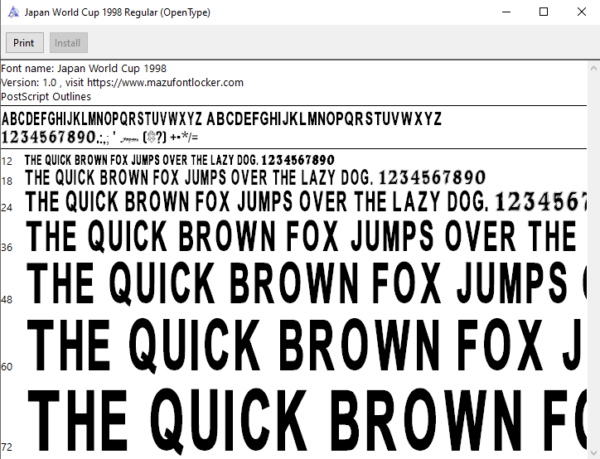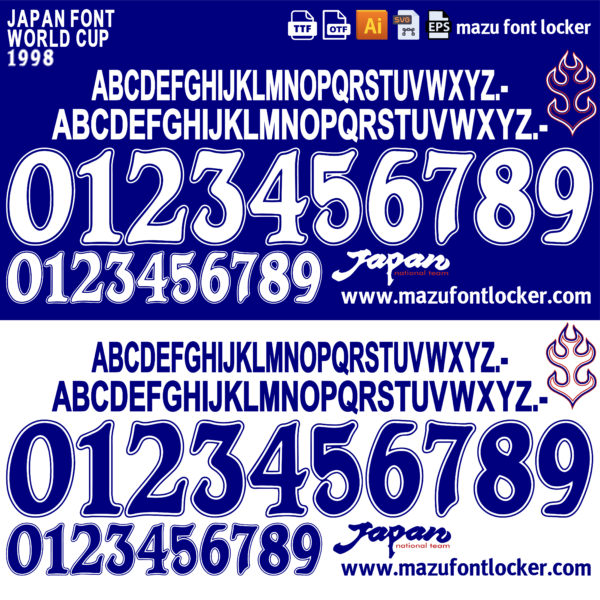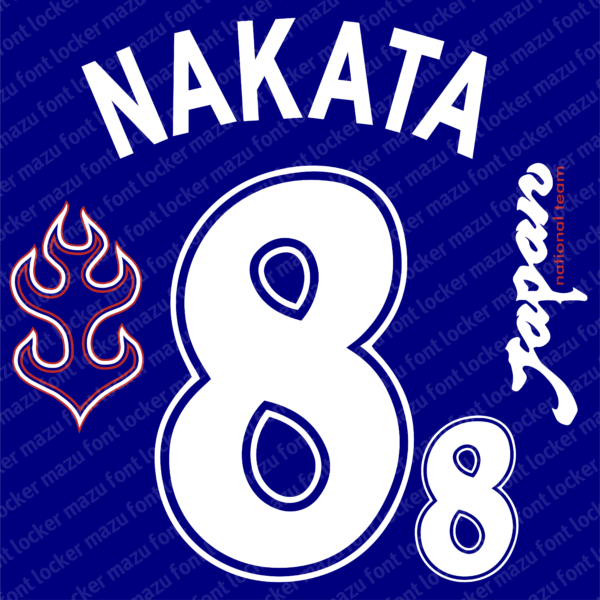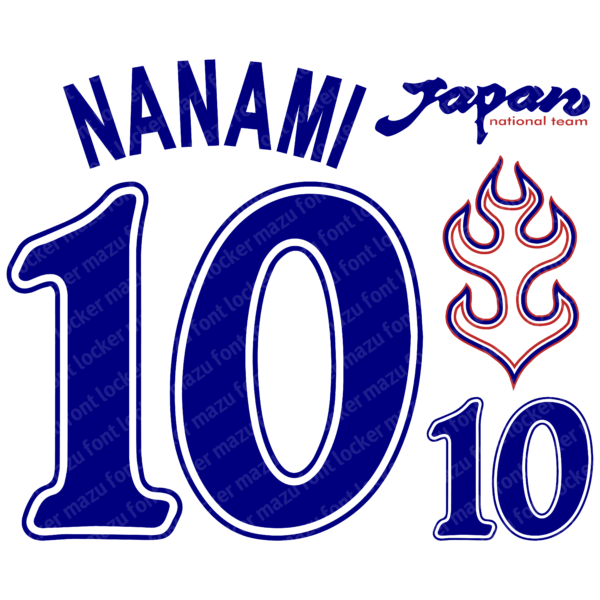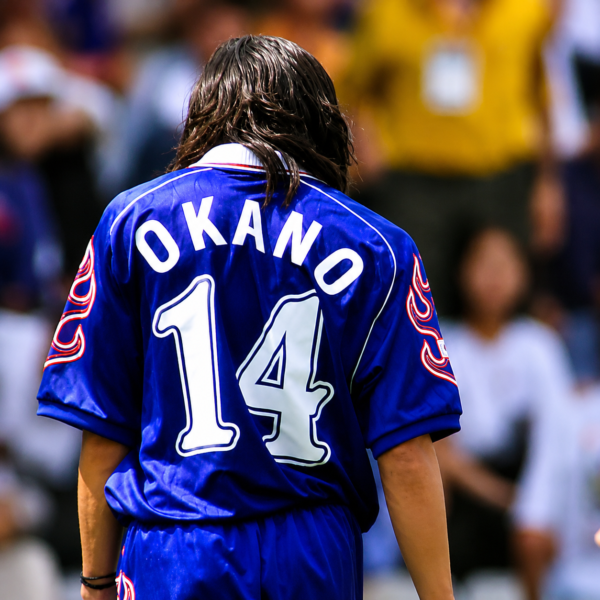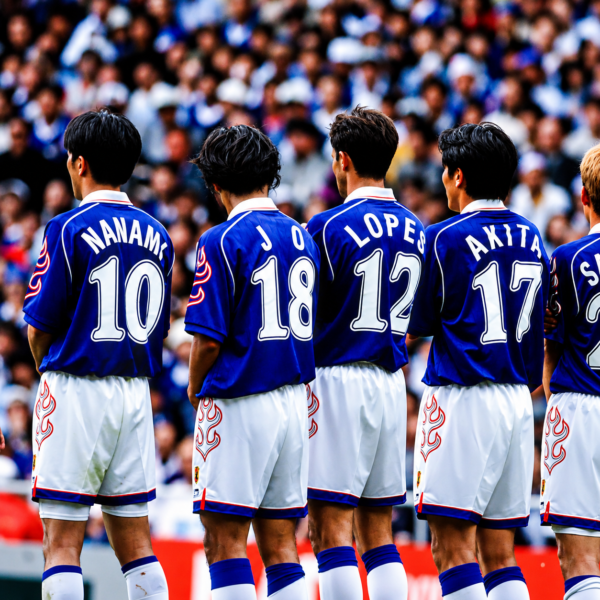
Japan World Cup 1998 Font – Legendary Samurai Spirit Masterpiece
Download the Japan World Cup 1998 Font and relive the golden era of Samurai Blue football. This stunning high-quality typeface captures the bold energy, discipline, and rising spirit of Japan’s historic 1998 World Cup campaign. Featuring sharp dynamic strokes and authentic Asian details, it’s ideal for posters, apparel, and impactful football designs.
Japan World Cup 1998 Font – Authentic Samurai Blue Typeface
The Japan World Cup 1998 Font is a premium typeface that accurately recreates the official match lettering worn by the Japan national team during the 1998 FIFA World Cup in France. This high-quality font kit captures the bold, clean, and iconic typography that represents Japan’s historic debut in the World Cup.
Designed for professional designers and passionate Japan fans, the Japan World Cup 1998 Font delivers perfect authenticity for creating retro jersey mockups, fan merchandise, matchday posters, social media graphics, and much more. It blends beautifully with the team’s iconic blue and white colors.
Why Choose Japan World Cup 1998 Font
This font stands out because of its sharp details and strong historical identity. Every letter and number is crafted to match the exact style used on the players’ shirts during the 1998 World Cup. Whether you are making realistic retro shirt templates or nostalgic football content, the Japan World Cup 1998 Font gives your designs that authentic Samurai Blue look.
The letterforms in the Japan World Cup 1998 Font are tall, bold, and highly readable. The strokes have a strong and controlled weight that looks powerful on the back of jerseys while maintaining excellent clarity and elegance.
The numerals use bold curves and firm edges, giving them a confident and premium appearance. This design ensures great legibility whether used in large print formats, digital mockups, or video content.
• Full uppercase A–Z and numbers 0–9 in authentic Japan 1998 style
• Special Japan JFA crest glyph for accurate shirt number detailing
• Create highly realistic Japan 1998 national team jersey mockups with accurate lettering
• Design stunning retro World Cup posters, score graphics, and squad announcements
• Produce custom Samurai Blue merchandise with a classic football aesthetic
Japan in the 1998 World Cup
The Japan national football team, known as the Samurai Blue, made their historic first appearance at the FIFA World Cup in 1998. Although they did not advance from the group stage, this tournament marked the beginning of Japan’s rise as a major footballing nation in Asia. For the latest news and updates about the Samurai Blue, visit the official Japan Football Association website.